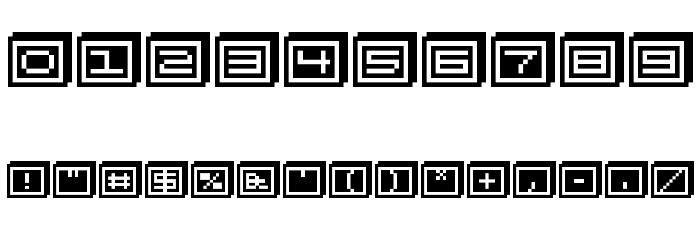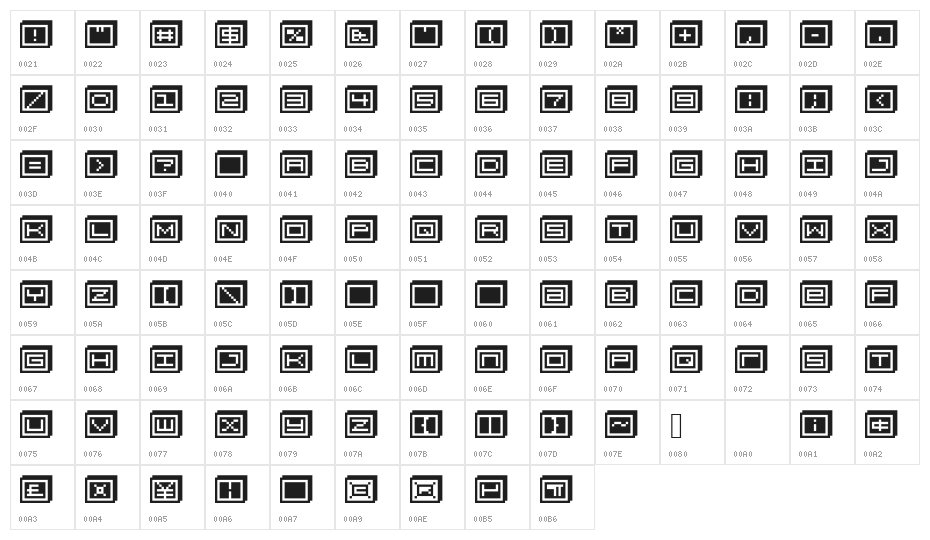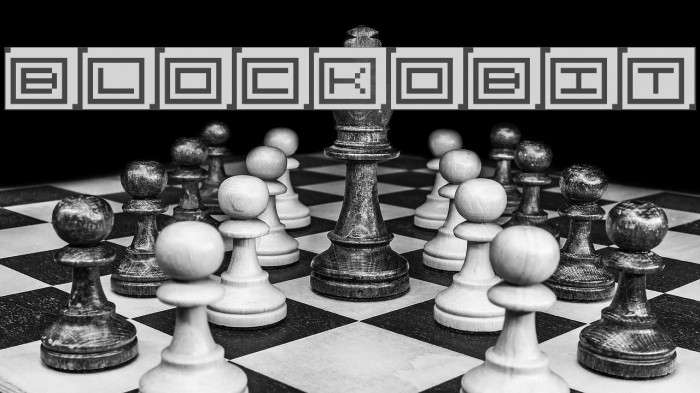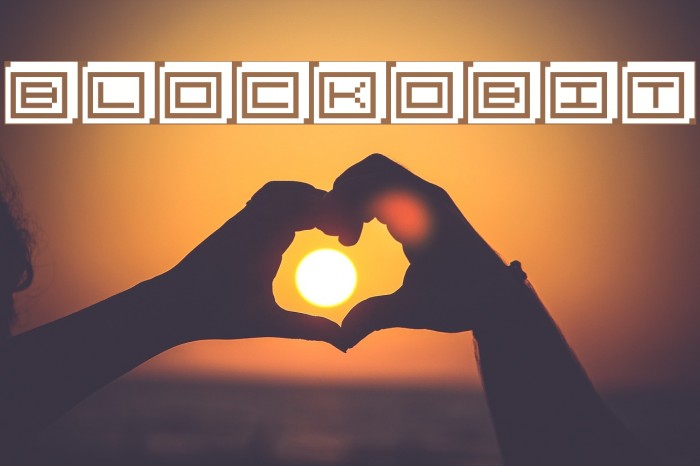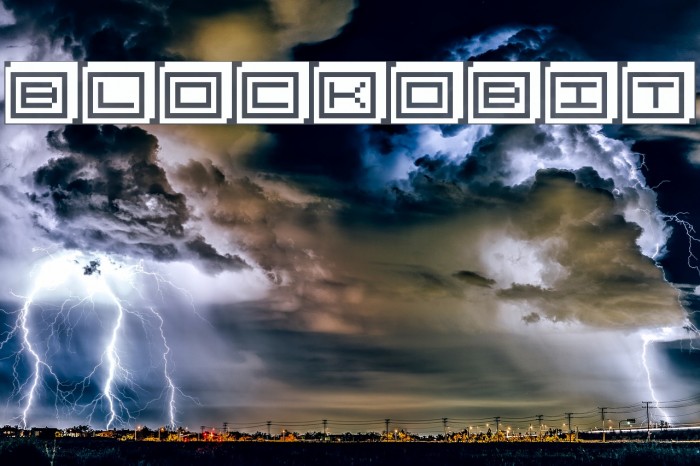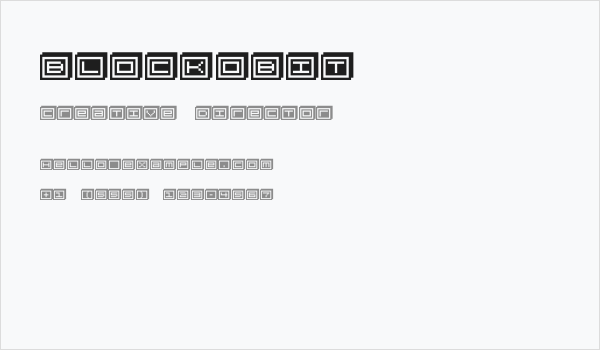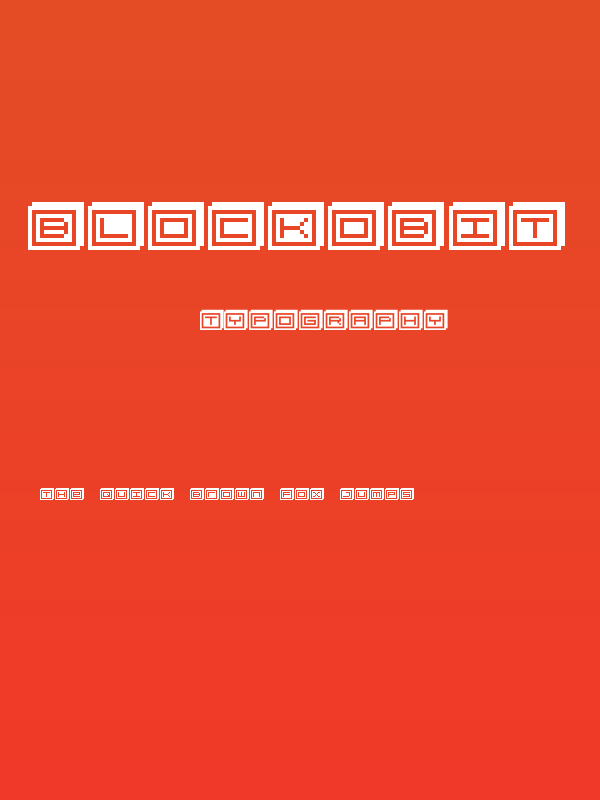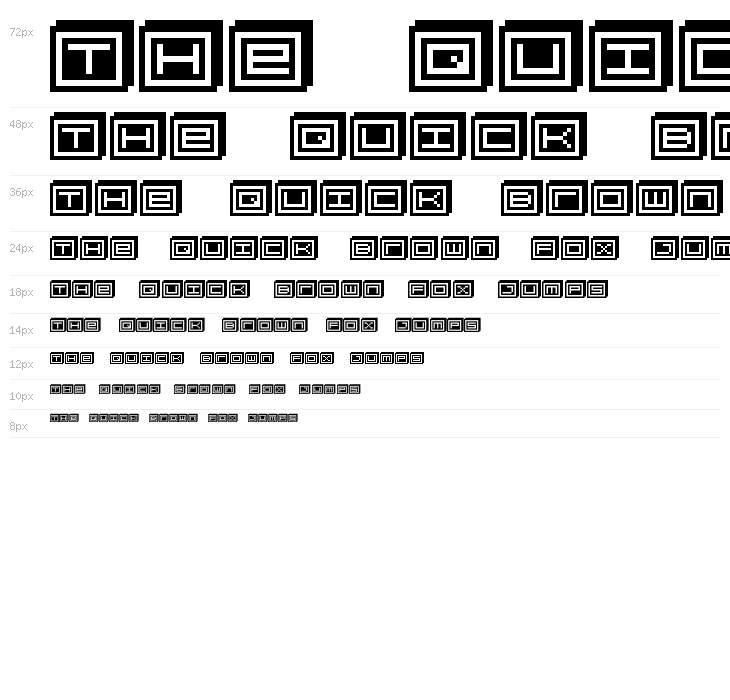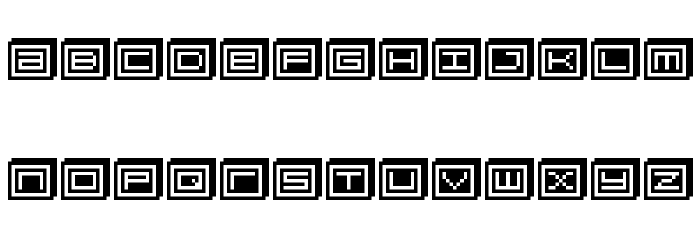
BlockoBit Font
BlockoBit Description
This font features a bold, blocky design with each character enclosed in a square, giving it a digital, pixelated appearance. The characters are uniformly spaced and have a consistent, geometric style that emphasizes clarity and simplicity. The uppercase and lowercase letters maintain the same height, contributing to a monospaced feel. The numbers and special characters are designed to match the overall aesthetic, making it suitable for retro or tech-themed projects. The high contrast between the thick strokes and the negative space within the squares enhances readability.
TwoNineFive - Maximillian Limpo
| Use Case | Logos, Headlines, Digital Art |
| Proposed Projects | Ideal for video game graphics, tech-themed posters, digital art projects, and retro-style branding. |